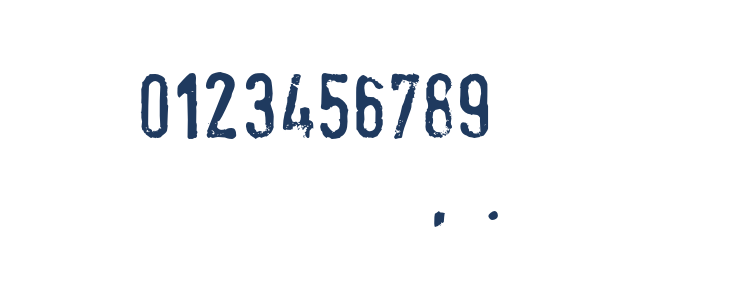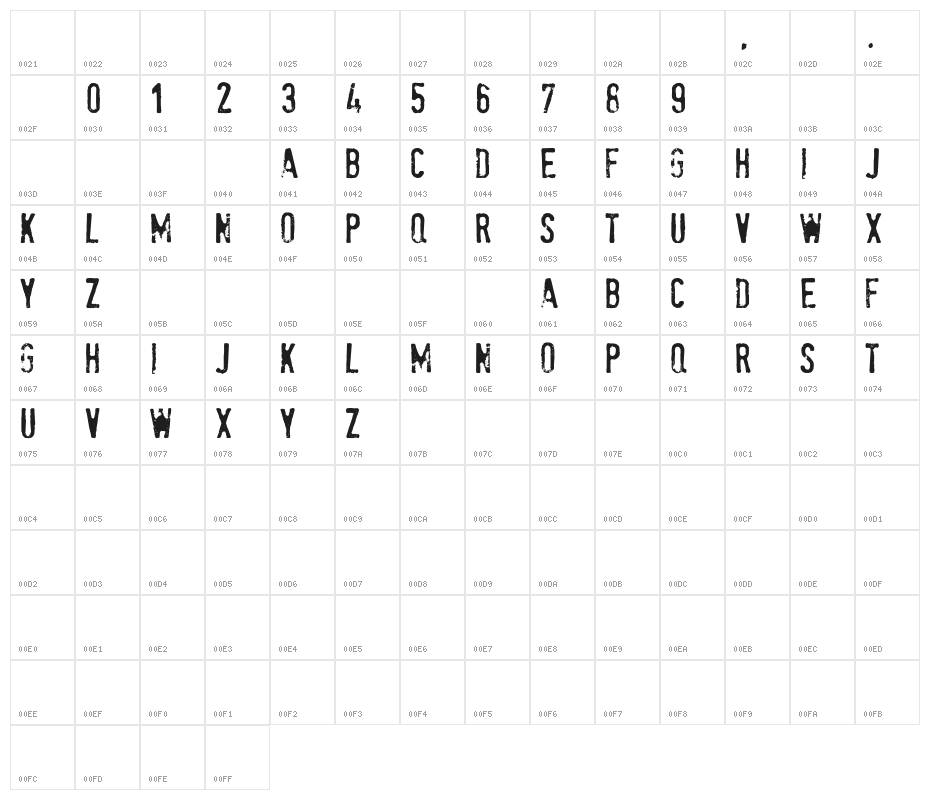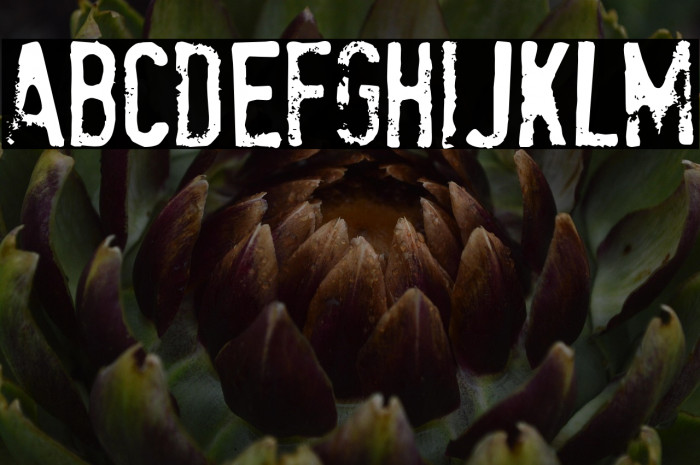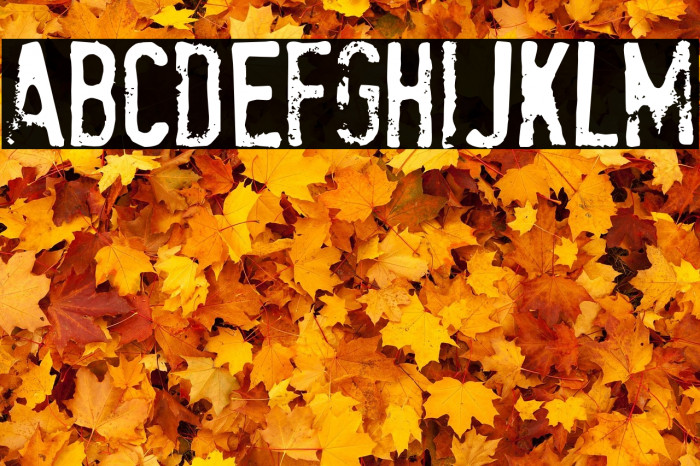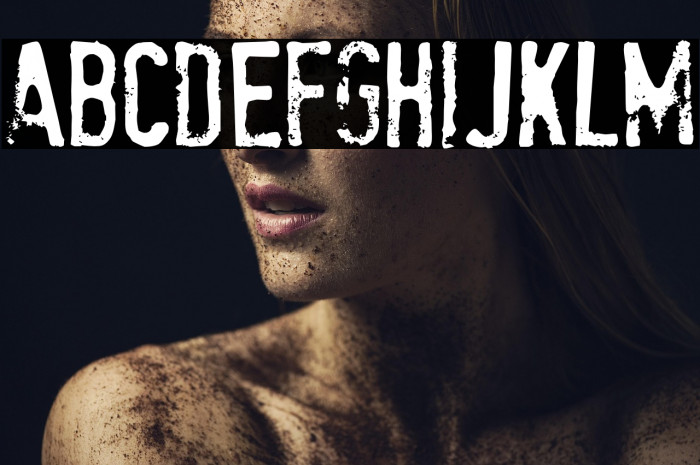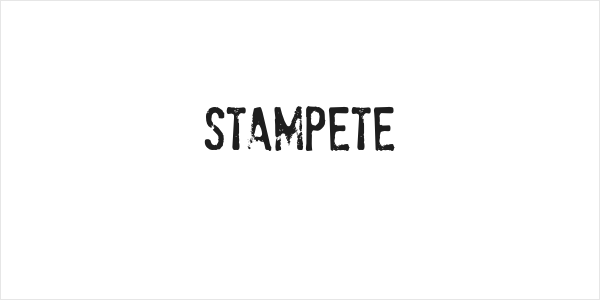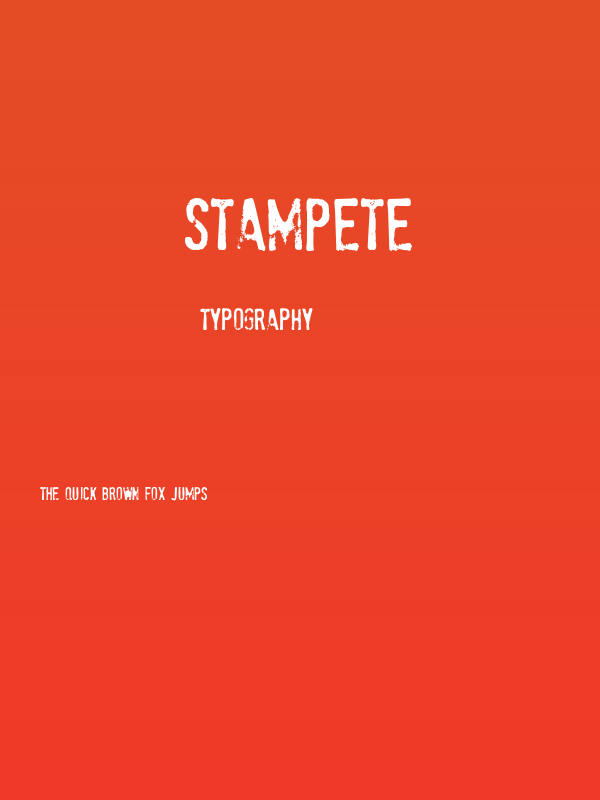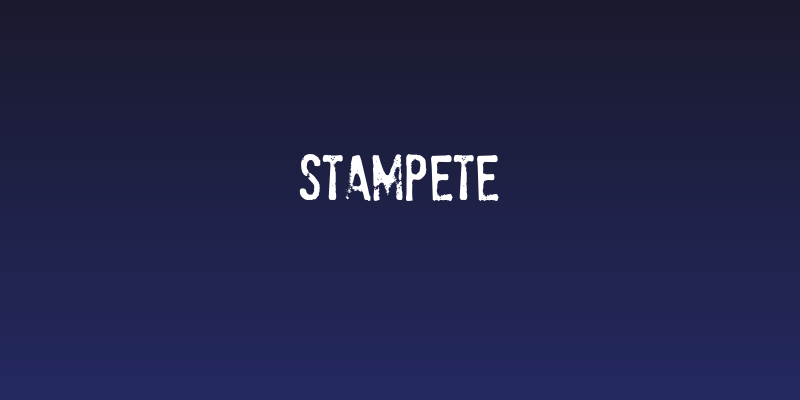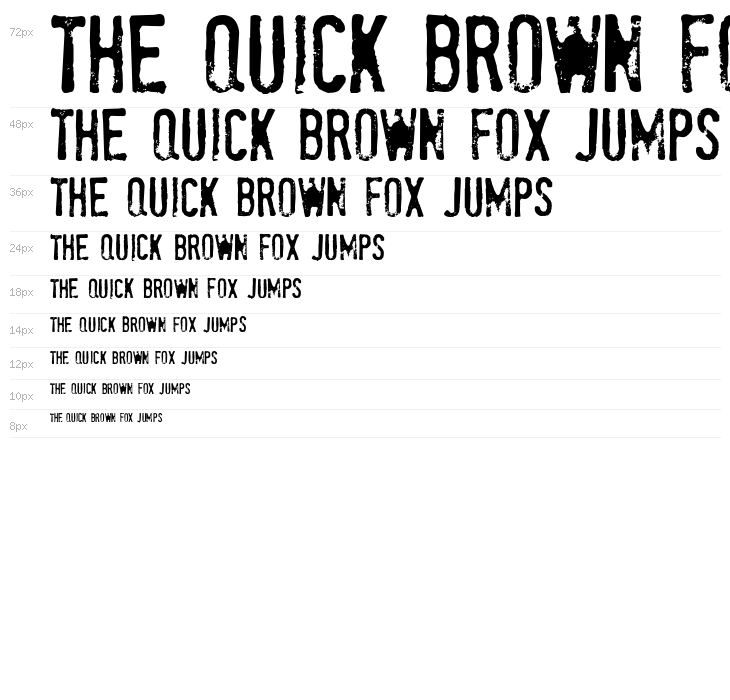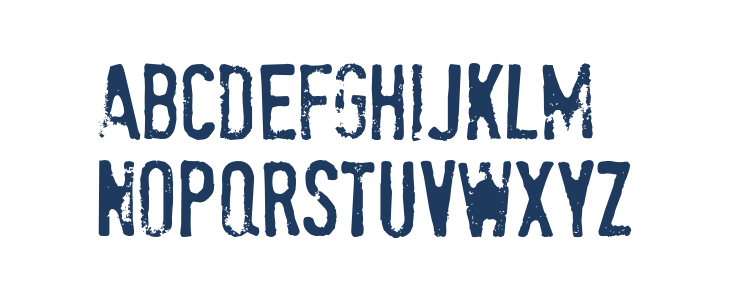
StamPete Font
StamPete Description
This font exhibits a rugged, distressed style with a bold and impactful appearance. The characters are designed with a textured, worn-out look, giving them a vintage and industrial feel. The uppercase letters are consistent in height, while the numbers maintain a similar style, ensuring uniformity across different uses. The font's rough edges and irregularities add to its charm, making it ideal for projects that require a gritty, authentic aesthetic. The spacing between characters is relatively tight, enhancing its bold presence.